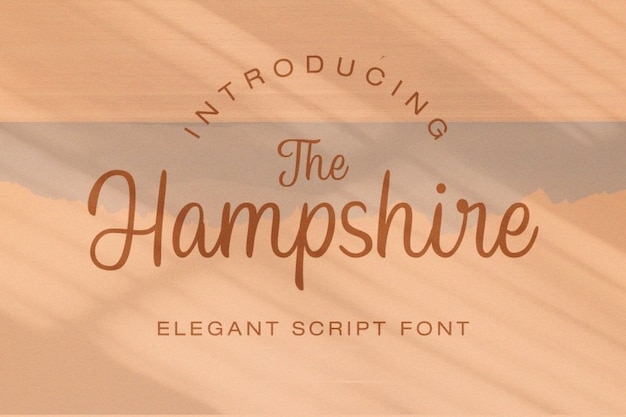
Hampshire Font
Hampshire is a font that beautifully marries the art of handwritten lettering with an understated elegance. Its characters exude a graceful, handcrafted charm that adds a touch of sophistication and personality to your text. Perfect for invitations, personal notes, or creative designs, Hampshire elevates your message with a timeless and elegant quality. This font captures the essence of elegant, handcrafted lettering, making it a top choice for those who want to infuse their work with a touch of refined and personalized beauty.